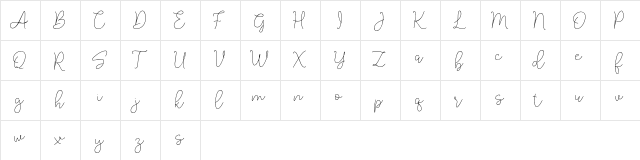
Lucylane Free Regular
Design Context for Lucylane Free Typeface
Lucylane Free is a composed and adaptable typeface that performs quietly and consistently across a wide range of design contexts.